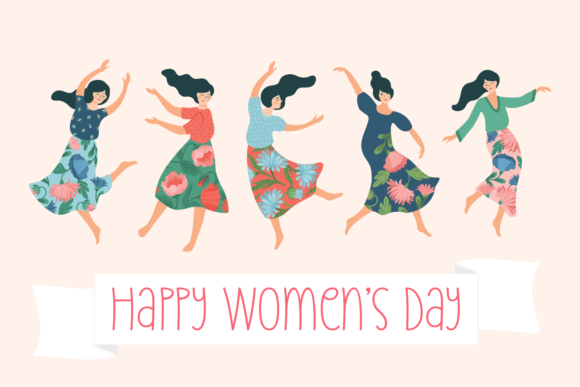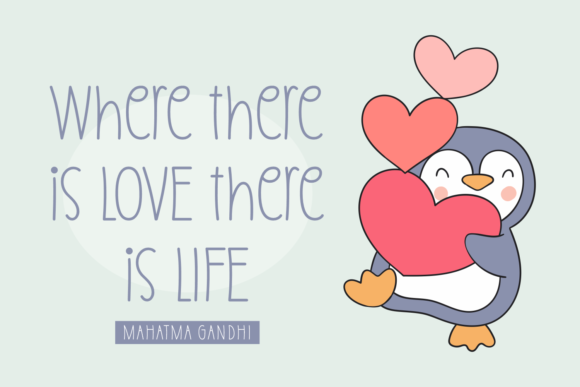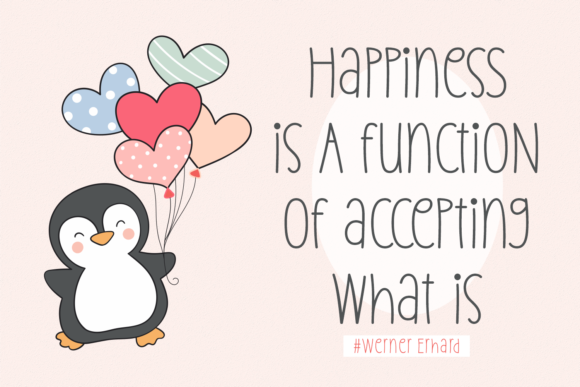
Introduction to Delight Brand Font
Do you remember that moment when you finally find the perfect font for your creative project? It’s like the stars aligning, and everything falls into place. For designers, this moment is priceless. And today, we’re excited to introduce you to the Delight Brand Font – a sweet and friendly handwritten font that’s sure to bring a smile to your face.
With its natural and unique style, the Delight Brand Font is an incredibly versatile design resource that can be used in a wide range of creative projects. Whether you’re working on a digital design, a logo, or even a print material, this high-quality font is sure to add a touch of personality to your work. And the best part? It’s free to download, so you can experiment with it as much as you like.
- The Delight Brand Font is a high-quality design resource ideal for creative projects, offering a unique and elegant touch.
- Delight Brand Font is perfect for a variety of creative projects, including logos, branding materials, and digital art.
- With its unique characteristics and high-quality design, the Delight Brand Font is an excellent addition to any design resource library.
Honest Review: Delight Brand Font
As a designer, I’m always on the lookout for high-quality design resources to elevate my creative projects. Recently, I had the chance to try out the Delight Brand Font, and I must say it’s been a pleasant experience.
Here are some aspects that work well for me: ✨
- High-quality glyphs and smooth edges, making it perfect for commercial use.
- The transparent background option is a huge plus for those who want to create beautiful, clean designs.
However, there are some limitations to consider: ⚠️
- Limited font styles and weights might be a drawback for designers who want more versatility.
- The font might not be suitable for highly complex or technical projects due to its clean and minimal design.
Overall, I’m impressed with the Delight Brand Font. It’s a solid choice for designers who want a high-quality, easy-to-use font for their creative projects. With a little creativity, it can definitely elevate your designs and make them stand out.
Delight Brand Font: A Practical Application Guide
Getting Started with Delight Brand Font
The Delight Brand Font is a high-quality design resource that can elevate any creative project. With a transparent background, this font is perfect for designers looking for a versatile and stylish option.
Tips for Getting the Most Out of Delight Brand Font
To get the most out of Delight Brand Font, be sure to experiment with different font sizes, colors, and combinations. You can also use the font in conjunction with other design elements to create a cohesive and visually appealing design.
Common Use Cases for Delight Brand Font
The Delight Brand Font is perfect for a variety of creative projects, including branding, marketing materials, and social media graphics. You can also use the font in presentations, documents, and websites to add a touch of style and professionalism.